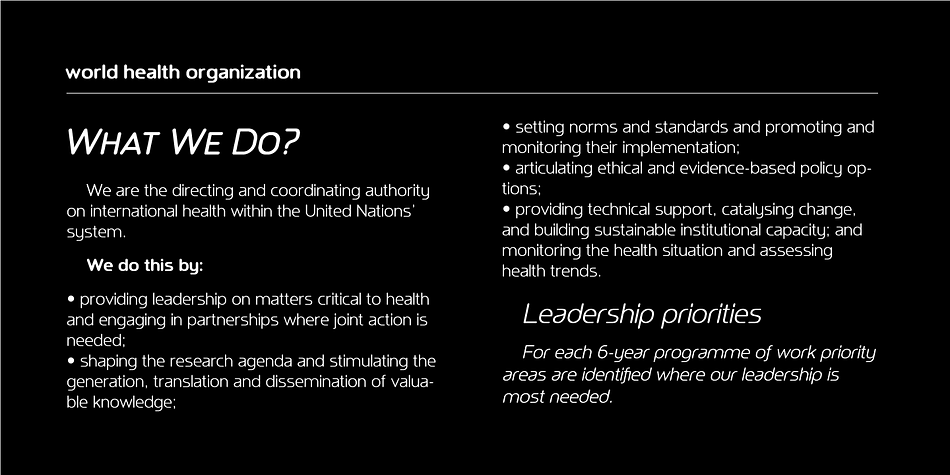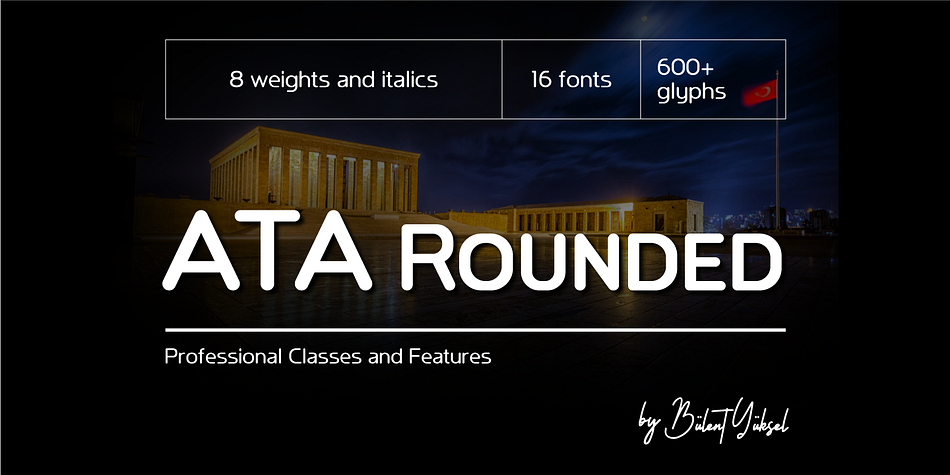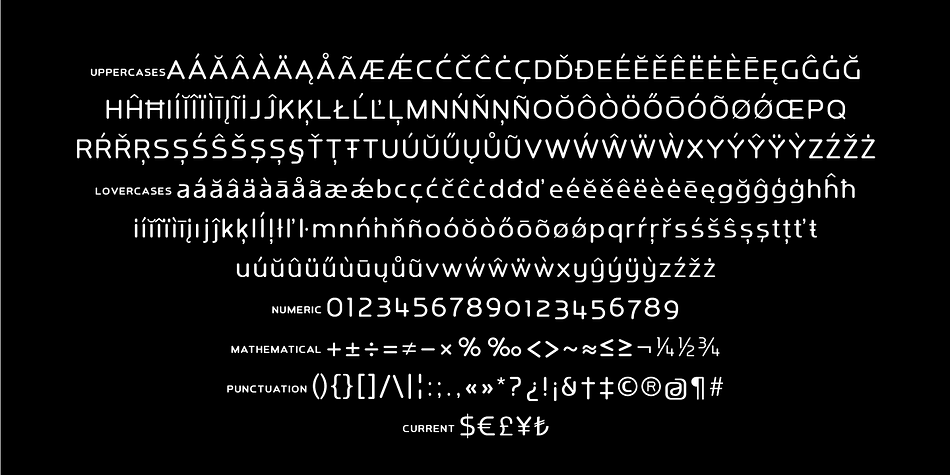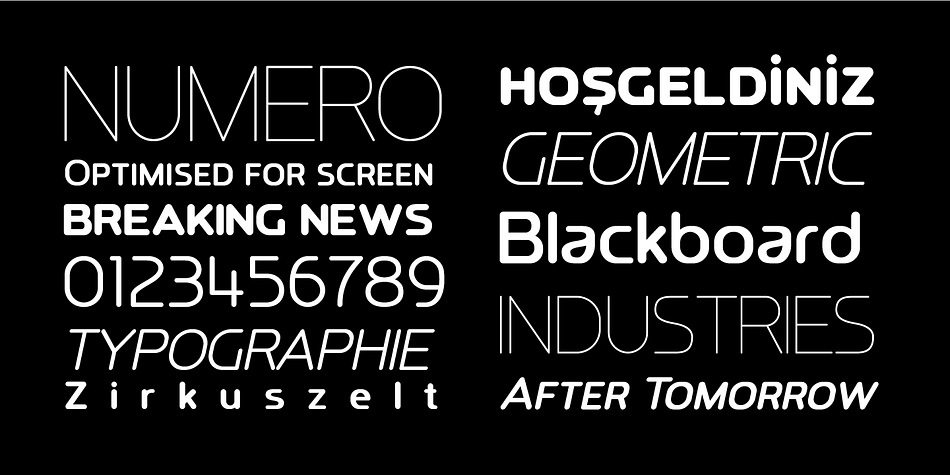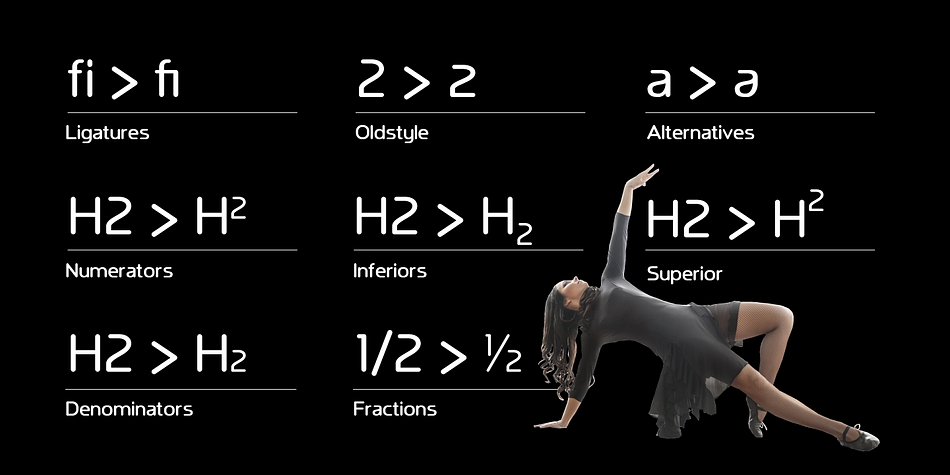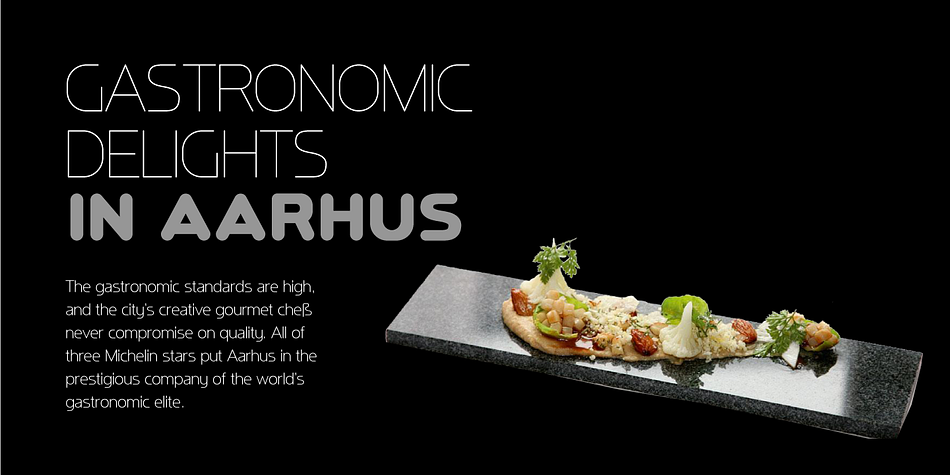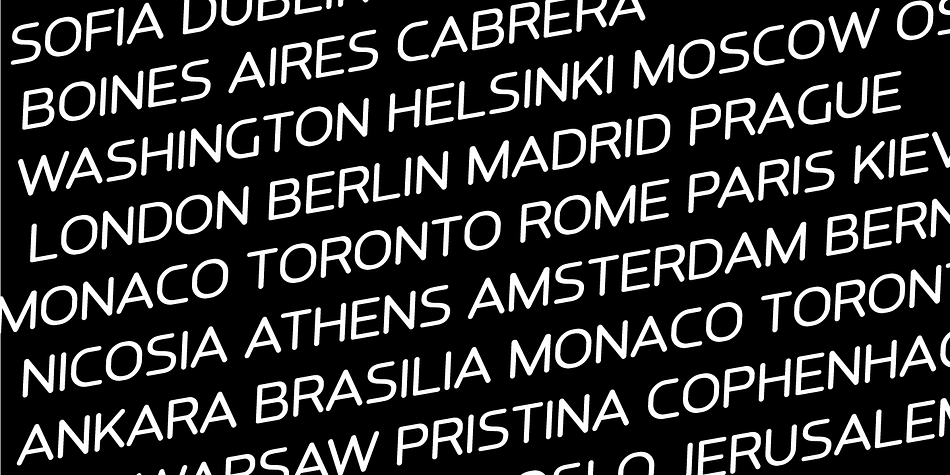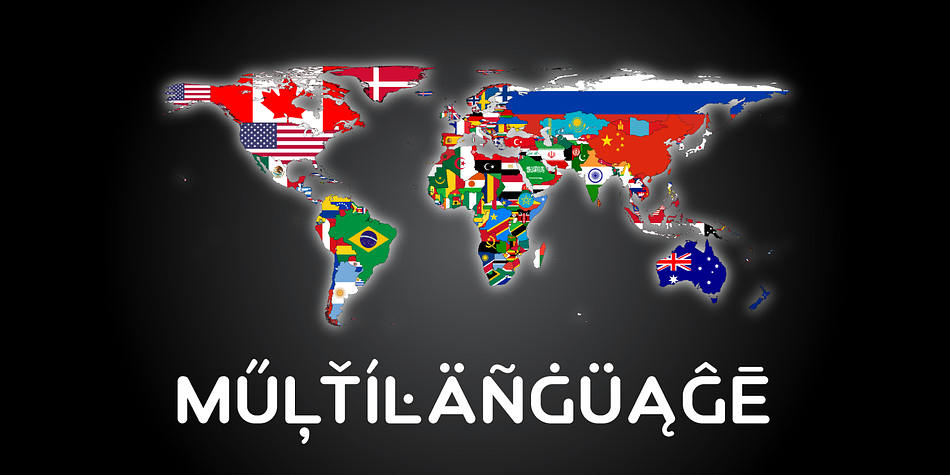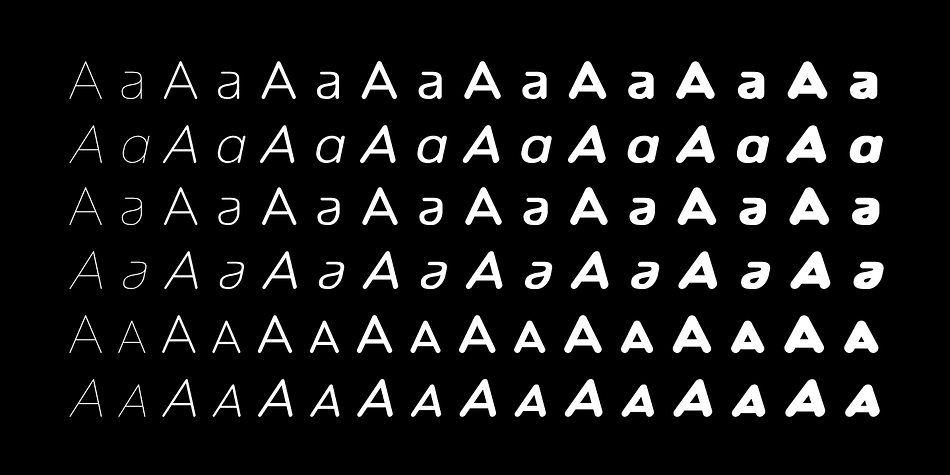
Ata Rounded is a sans serif font family. This typeface has sixteen styles and was published by Bülent Yüksel.
My son’s name is Ata Caner Yüksel. After building this character, I wanted to honor with my son’s name. I think I fully reflects the character I created in my mind. ATA ROUNDED, only one of the four other deep end with rounded corners consist of sharpened flat plate. Matched to one another and are optimized for screen.
The family has eight weights plus matching italics was designed by Bülent Yüksel in 2016.
Ideally suited for advertising and packaging, editorial and publishing, logo, branding and creative industries, poster and billboards, small text, wayfinding and signage as well as web and screen design.
ATA provides advanced typographical support for Latin-based languages.
Case-Sensitive Forms, Classes and Features, Small Caps from Letter Cases, Fractions, Superior, Inferior, Denominator, Numerator, Old Style Figures, Stilistics Alternates just one touch easy In all graphic programs.